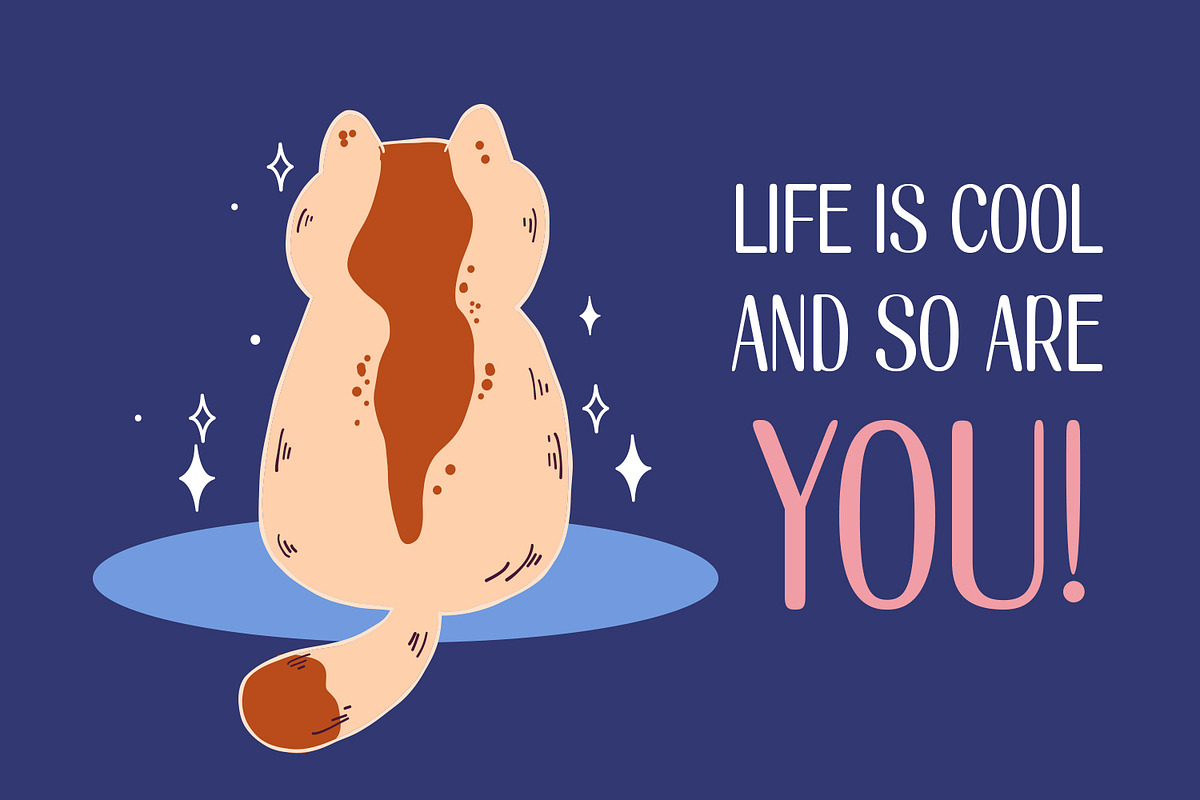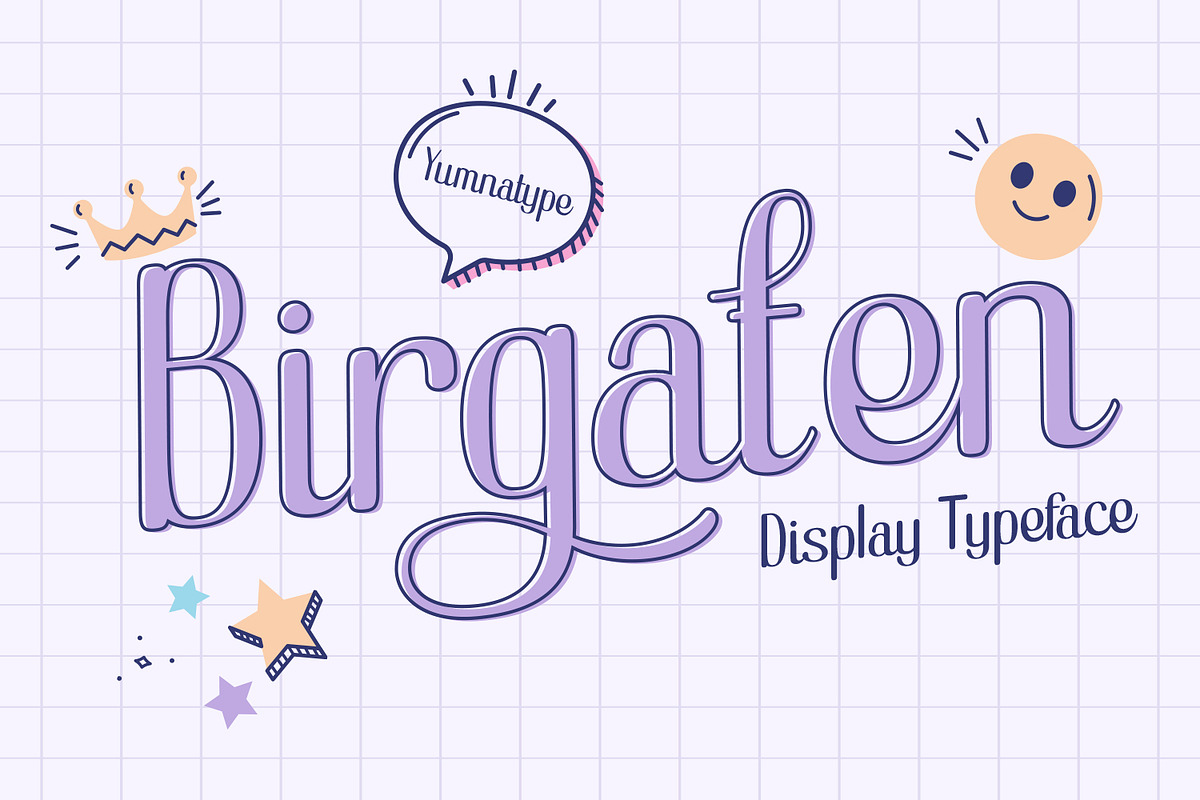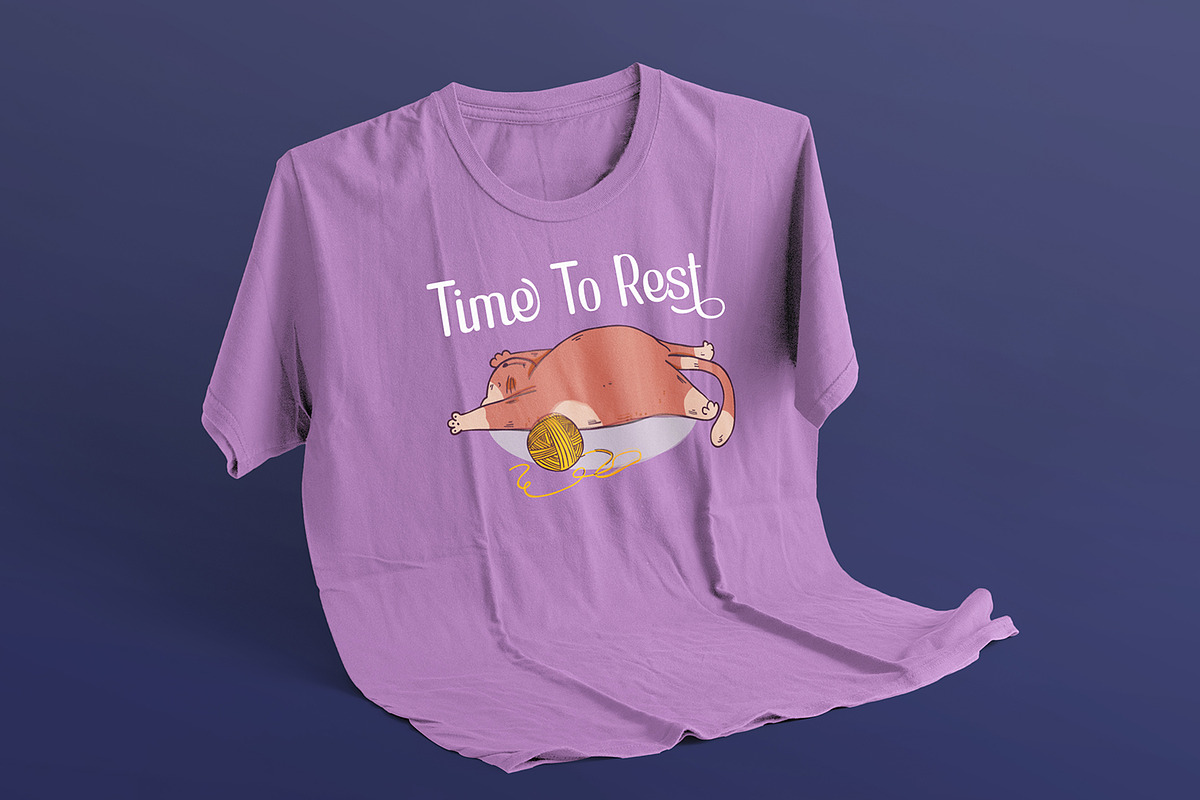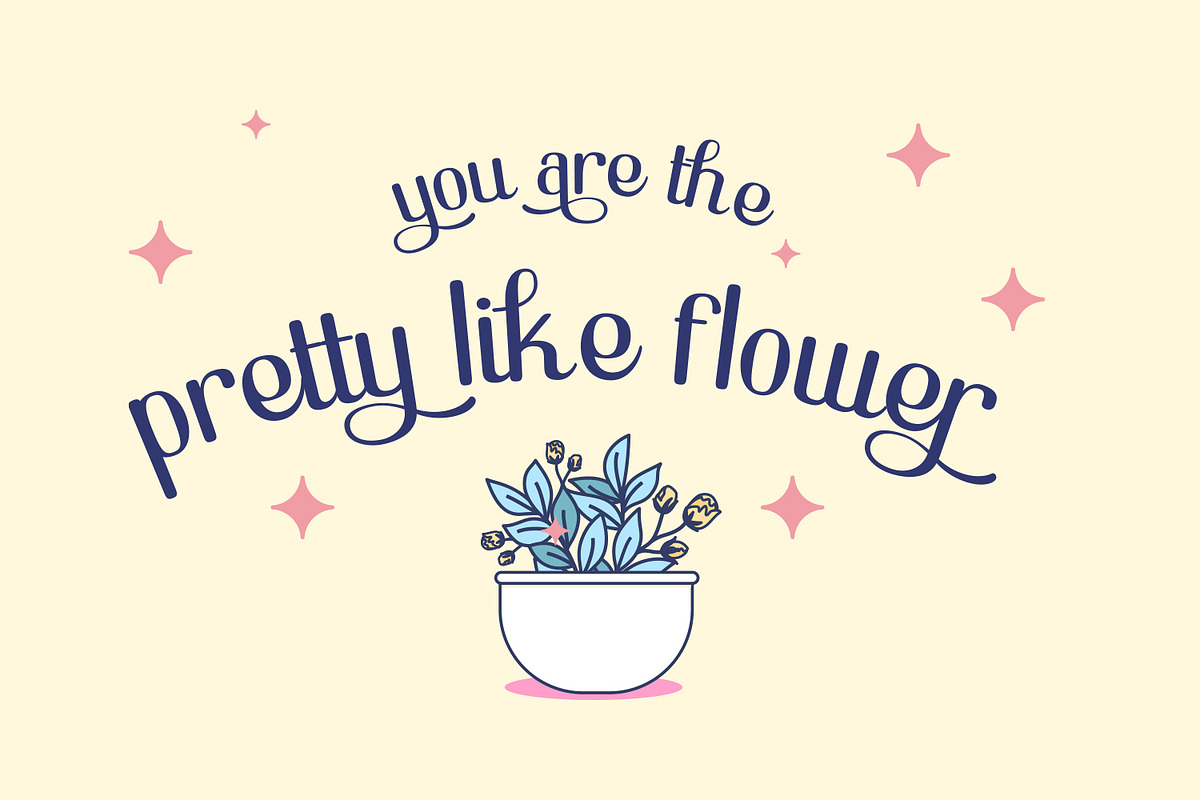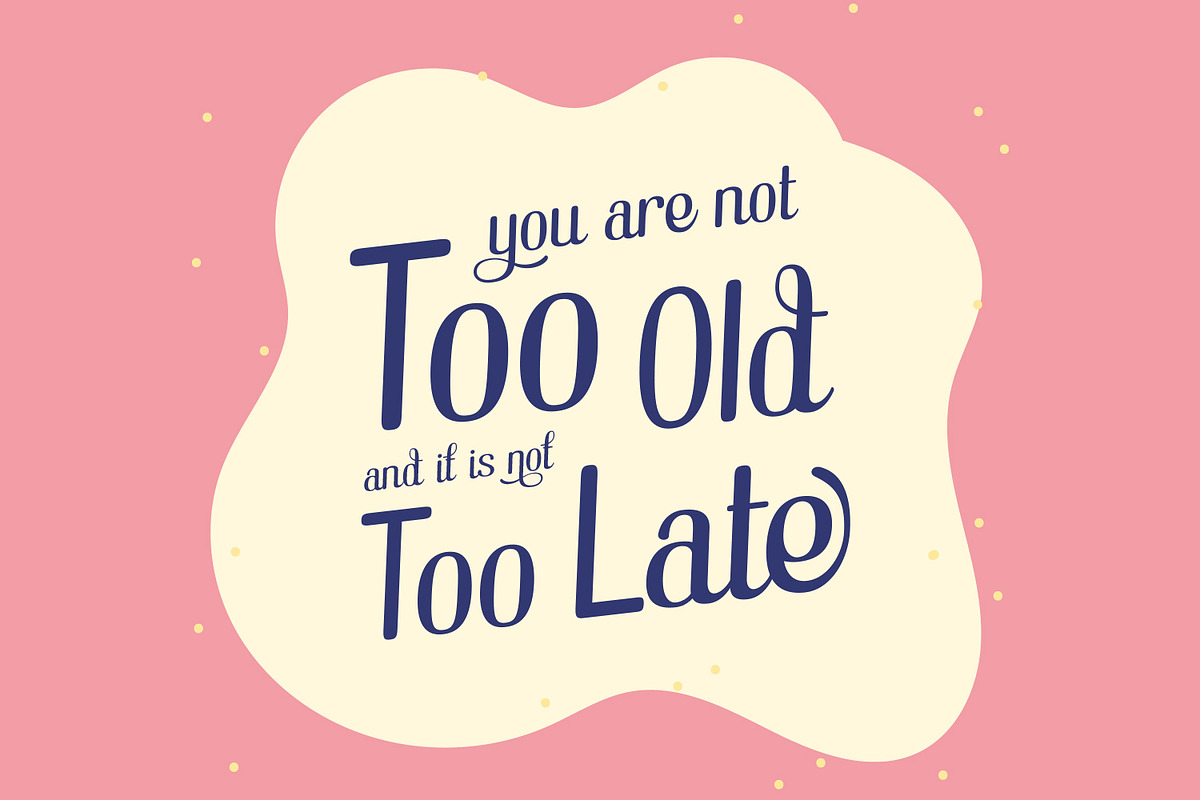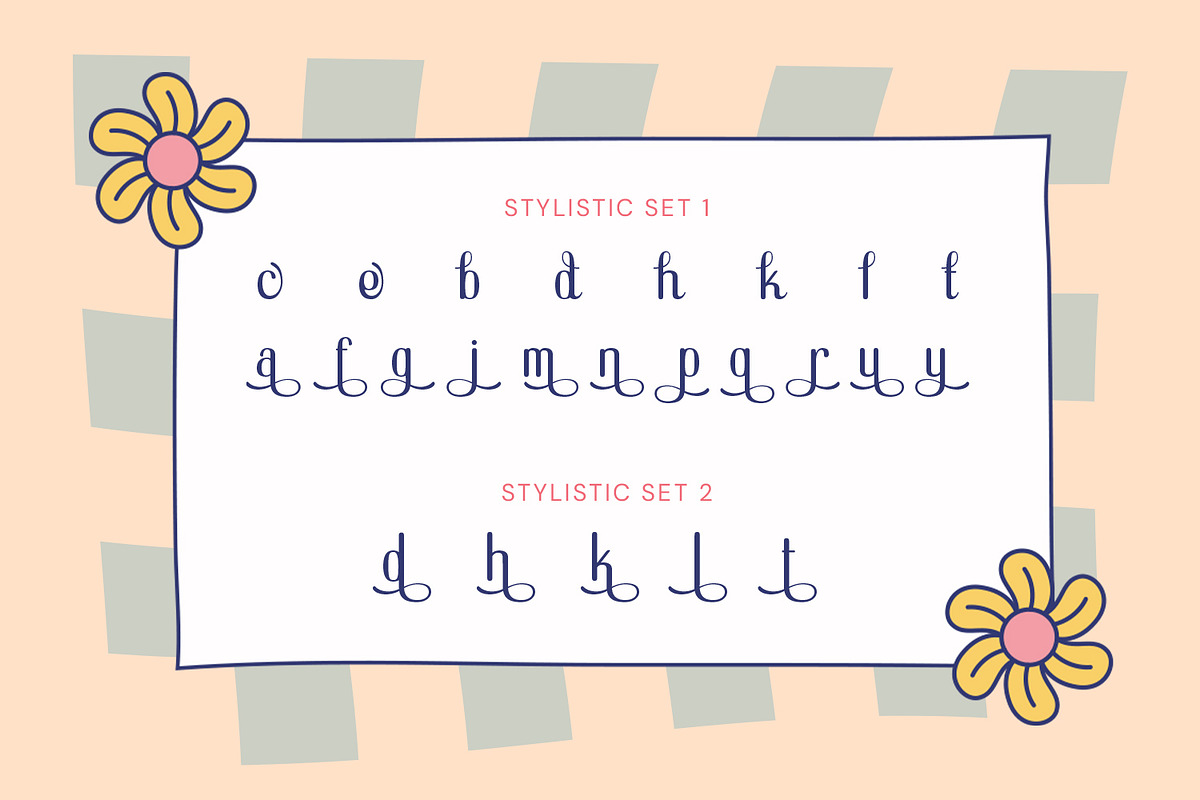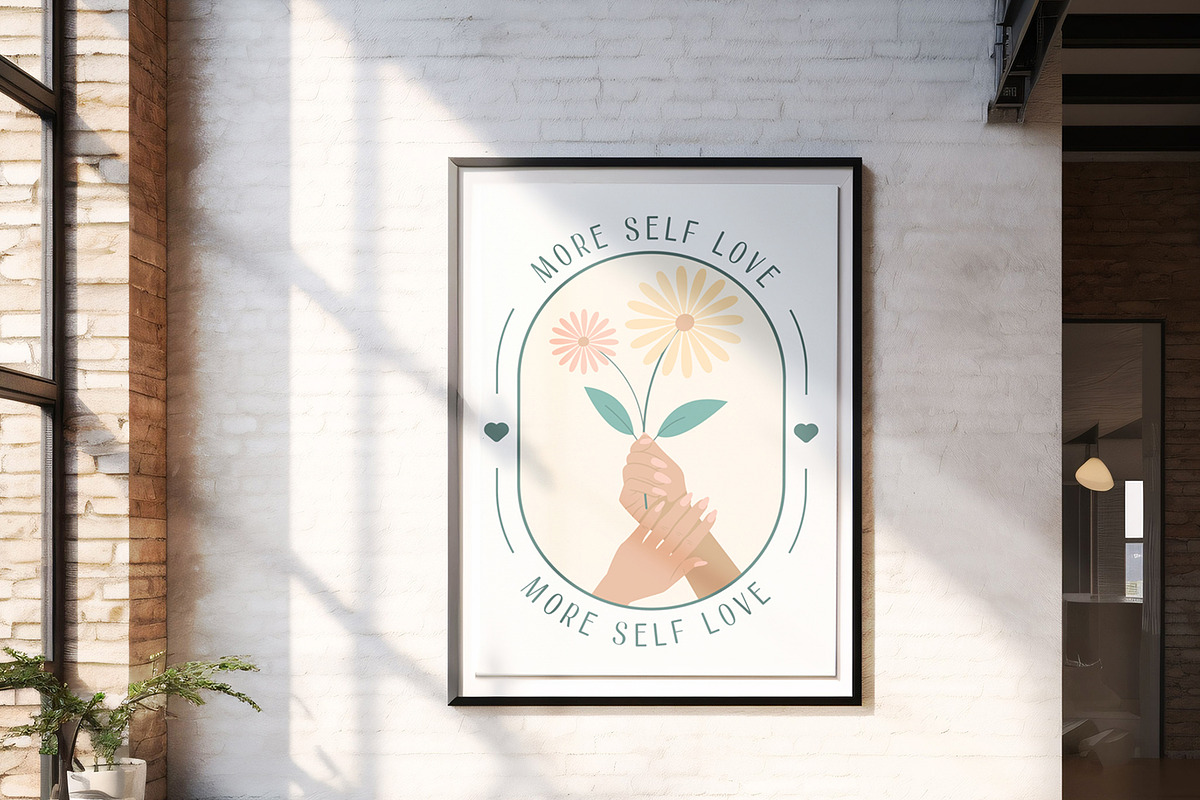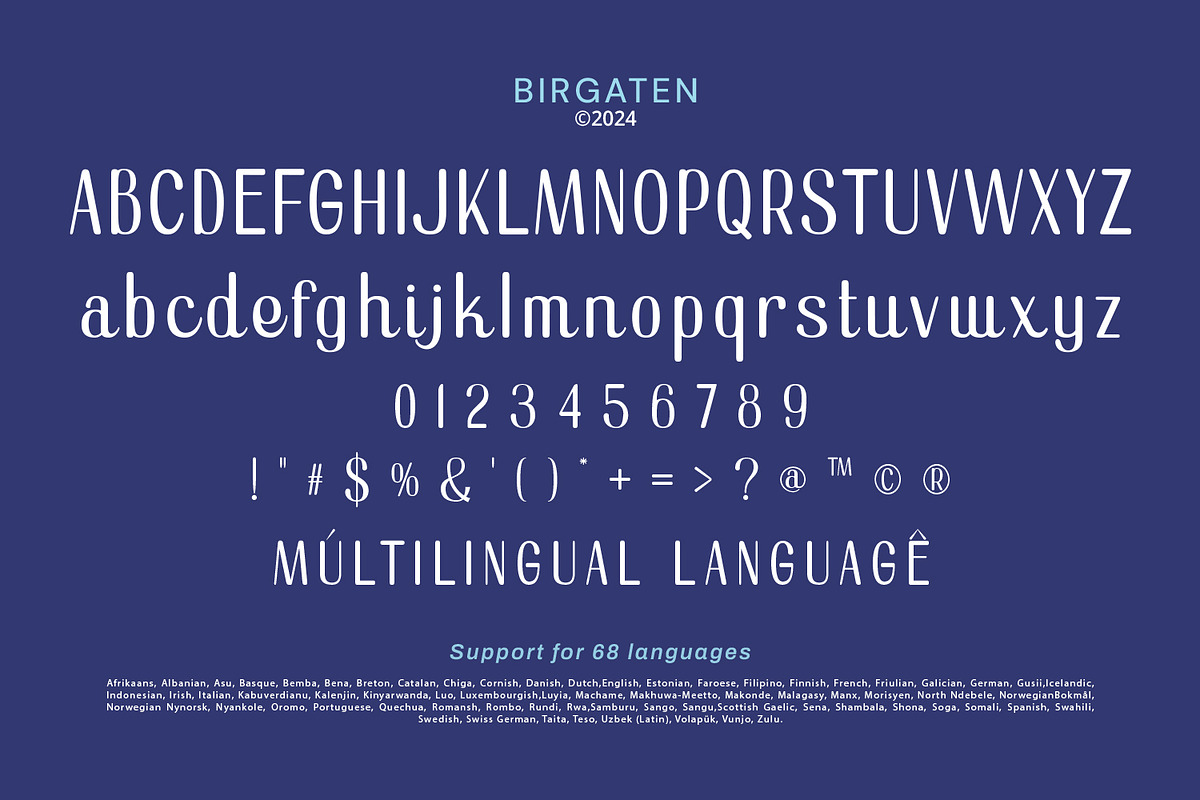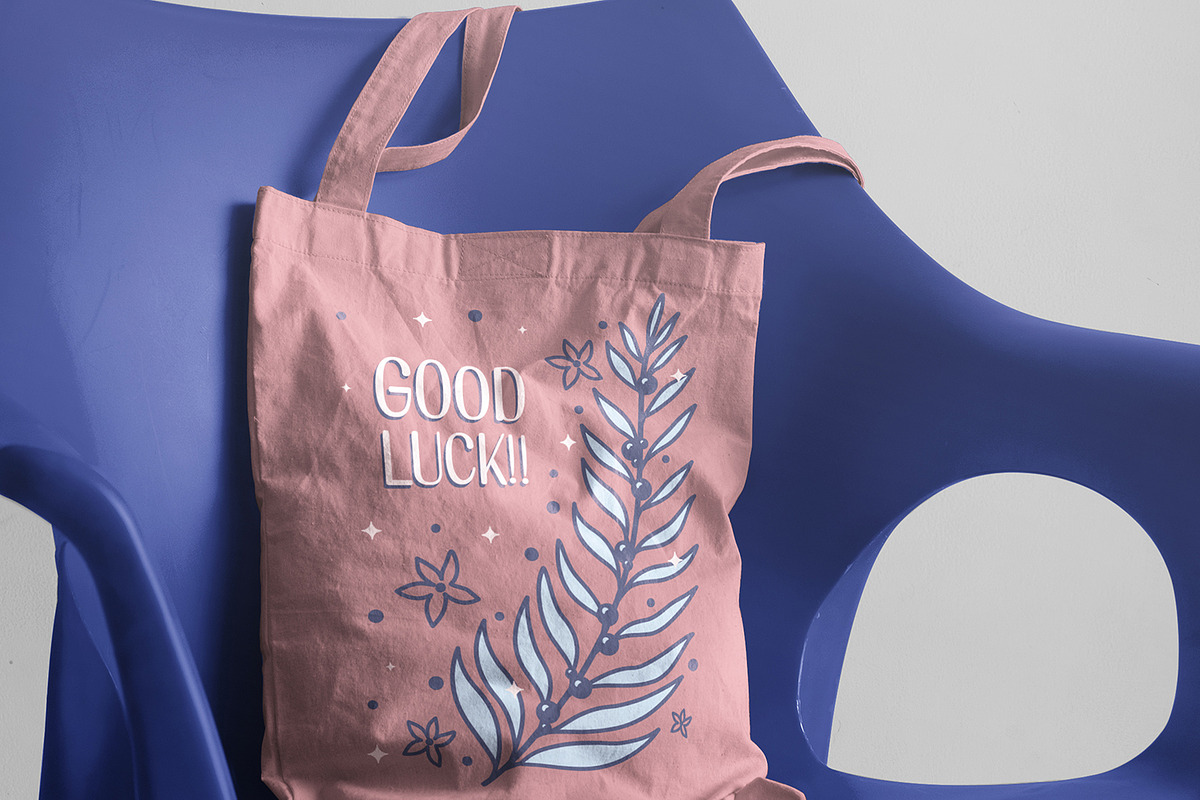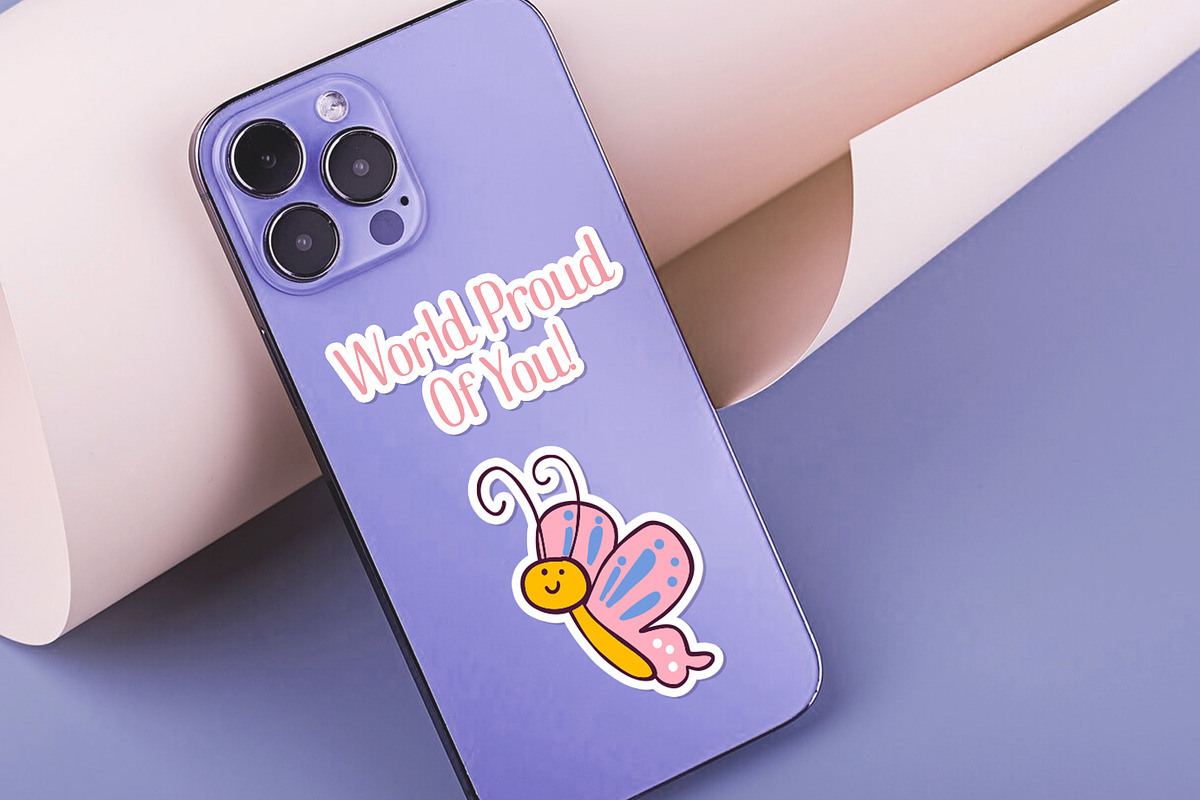
Birgaten
Birgaten is a display font that brings a touch of whimsy to your designs. With a slightly playful style, it captures a sense of creativity. The font is made with a not-too-thick weight, ensuring readability while maintaining its unique character. The rounded shapes of the letters add a friendly feel, complemented by low contrast that provides a smooth and consistent look. Distinctively, some letters have swinging ends, adding a delightful motion and personality to the text. In addition, enjoy the features here.
- Stylistic Sets
Birgaten fits in headlines, logos, posters, flyers, branding materials, print media, editorial layouts, and many more designs. Find out more ways to use this font by taking a look at the font preview.